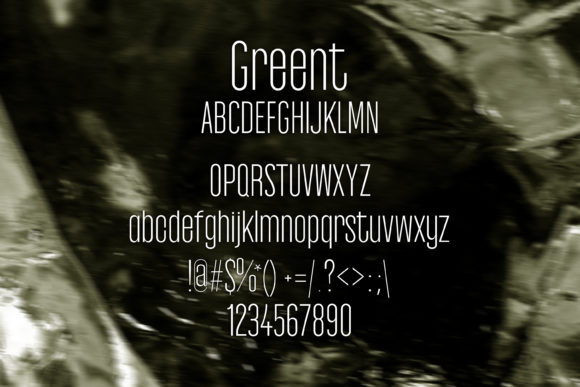
Introducing Greent Font: The Modern and Clean Sans Serif with a Cool Factor
In the world of typography, fonts play a crucial role in conveying messages, expressing emotions, and creating visual identities. For designers and crafters, finding the perfect font can be a daunting task, especially when looking for something that combines modernity, cleanliness, and a touch of coolness. This is where Greent Font comes into play – a modern and clean sans serif font that is taking the design community by storm.
What Makes Greent Font Stand Out?
Greent is a modern and clean sans serif font with an incredibly cool feel. Its sleek lines, balanced proportions, and highly legible design make it an ideal choice for a wide range of design projects. Whether you’re working on a branding campaign, a website, or a crafting project, Greent Font is sure to impress.
Key Features of Greent Font
- Modern and Clean Design: Greent Font boasts a contemporary and minimalist design that will give your projects a fresh and modern look.
- Sans Serif: The font’s sans serif design ensures that your text remains clear and easy to read, even at smaller sizes.
- Cool Factor: Greent Font has a unique and stylish feel that will add a touch of sophistication to your designs.
- Highly Legible: The font’s balanced proportions and carefully crafted letterforms ensure that your text is easy to read and understand.
Why Choose Greent Font?
With so many fonts available, why should you choose Greent Font for your next project? Here are a few compelling reasons:
- Versatility: Greent Font is suitable for a wide range of design projects, from branding and advertising to web design and crafting.
- Uniqueness: Greent Font’s modern and clean design ensures that your projects will stand out from the crowd.
How to Use Greent Font in Your Designs
Greent Font is incredibly versatile and can be used in a variety of design projects. Here are a few ideas to get you started:
- Branding and Advertising: Use Greent Font to create modern and stylish logos, business cards, and ad campaigns.
- Web Design: Greent Font is perfect for web design projects, including website headers, navigation menus, and body text.
- Crafting and DIY: Add a touch of modernity to your crafting and DIY projects, such as handmade cards, invitations, and signs.
Greent Font is a modern and clean sans serif font that is sure to take your designs to the next level. Its unique blend of style, legibility, and versatility makes it an ideal choice for designers and crafters alike. Whether you’re looking to create a bold brand identity or add a touch of sophistication to your crafting projects, Greent Font is the perfect choice.